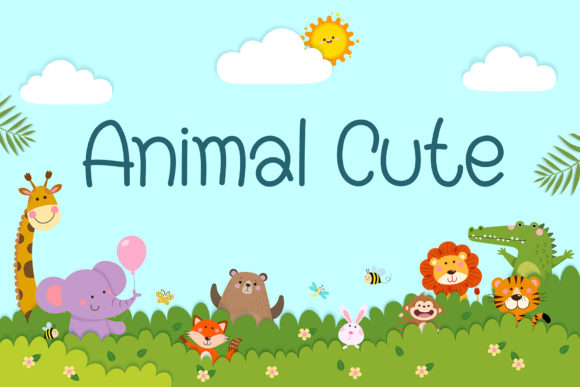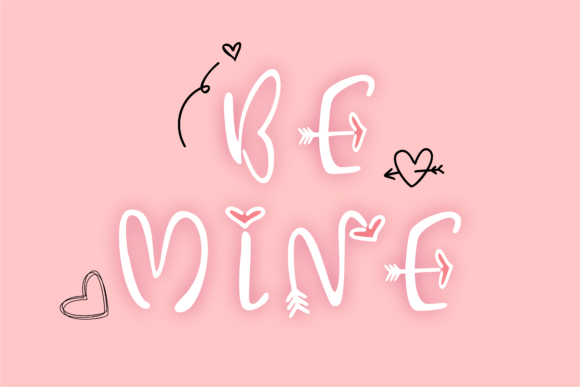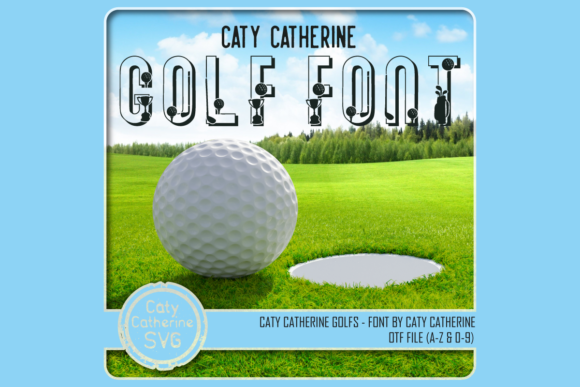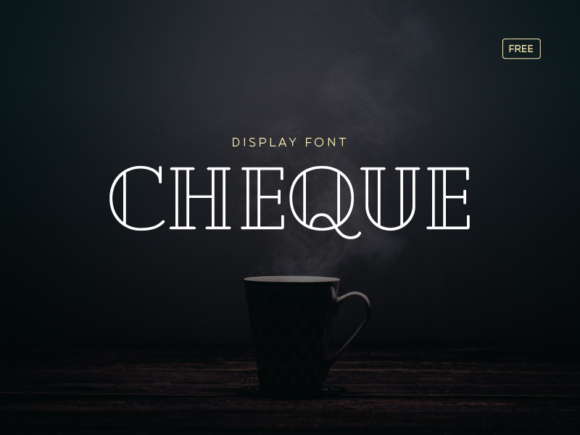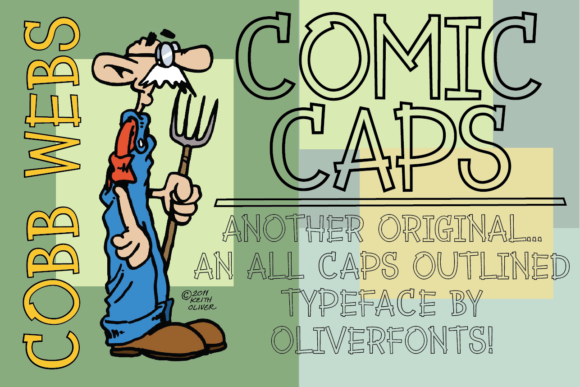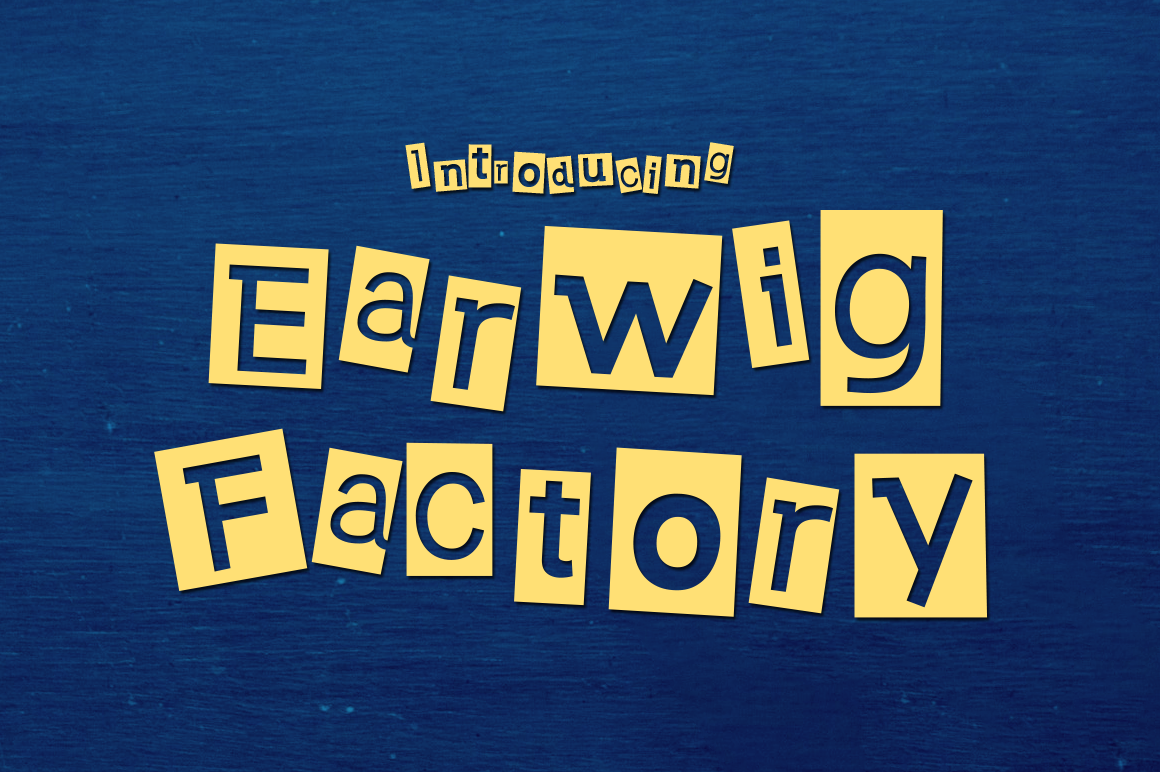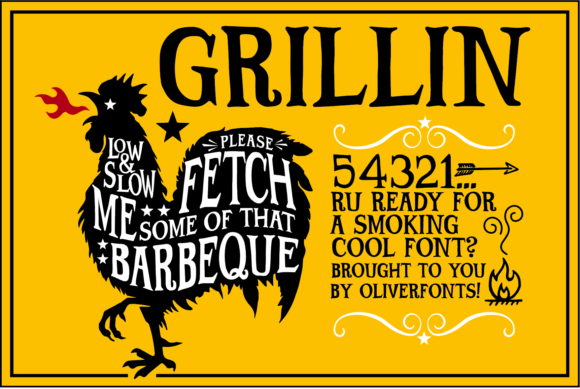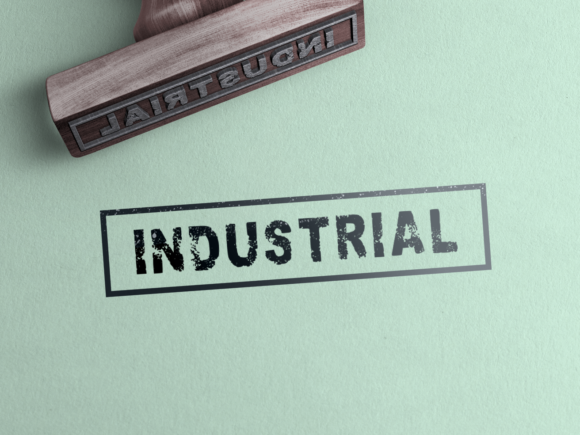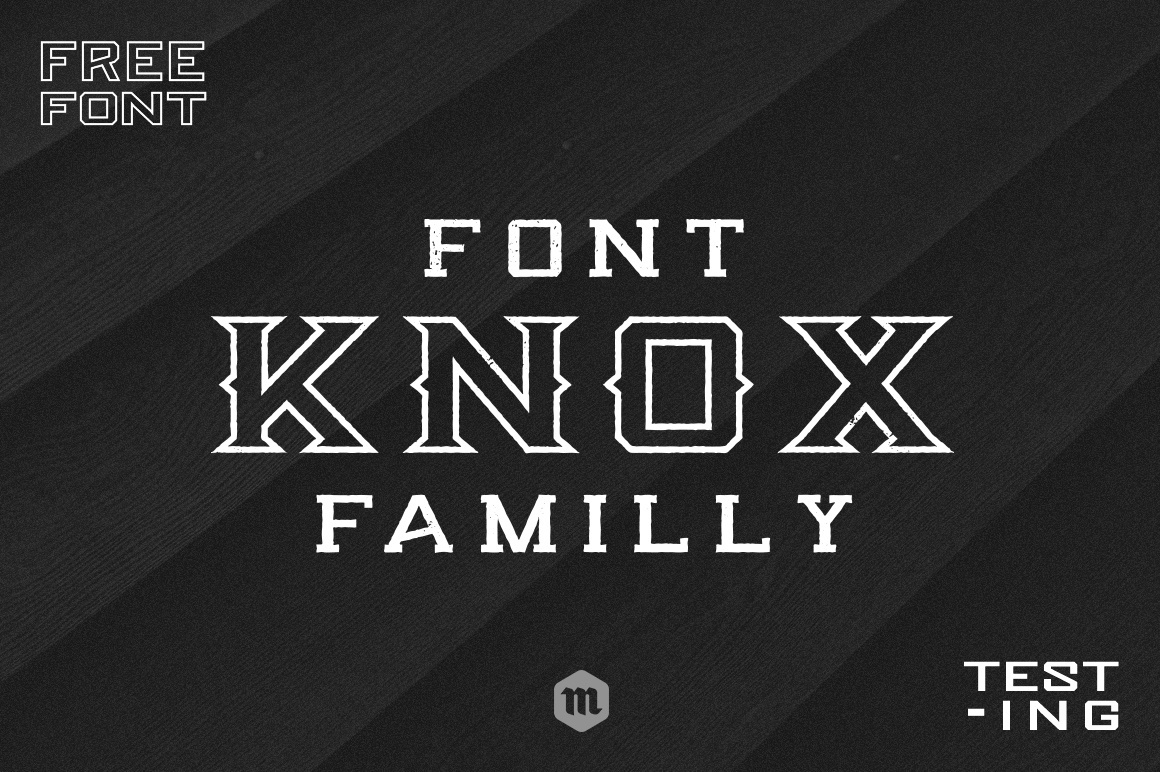
Free Display Fonts: 41 Best Bold & Decorative Picks (2026)
Free display fonts are built to be seen from across the room: bold headlines, punchy logos, and decorative accents that a body-text font simply can’t deliver. This collection rounds up 41 free display and decorative fonts, from chunky cartoon-style lettering to graffiti-inspired display faces, all pulled from Creative Fabrica’s most popular free downloads.
Quick Picks
| Best Overall | Play Ink – a chic, bubbly display font for branding and kids’ projects |
| Boldest | Carved Wood – an incredibly bold, unique display style |
| Best for Street Style | Notress – a graffiti-styled display font with a street art vibe |
| Best Decorative | Karina Monogram – a charming decorative font for invitations and stationery |
Matching a Free Display Font to Your Project
Free display fonts are headline tools, not body-text tools, so the main decision is tone: playful and cartoon-like for kids’ content, graffiti and street-style for urban branding, or clean and geometric for modern logos. Decorative fonts, mixed into this same list, go a step further by building illustrative detail directly into the letterforms, which makes them strong standalone graphics for cards and monograms rather than just headline type. Whichever direction you go, pairing a bold free display font with a plain body font keeps the overall design readable.
Styling Tips for Free Display Fonts
Use free display fonts sparingly, one per headline is usually enough. Stacking two display fonts in the same design competes for attention, while a single display font paired with a simple sans serif for supporting text lets the display font do its job.
41 Free Display Fonts
1. Play Ink
Best for: Kids’ Projects, School & Classroom
Play Ink is a chic and bubbly display font. It embodies playfulness and authenticity and is the perfect choice for any children’s activity or school project.
2. Super Space
Best for: Kids’ Projects, School & Classroom
Super Space is a fun, cool, and thick lettered display font. It embodies playfulness and authenticity and is the perfect choice for any children's activity or school project.
3. Sugar Peachy
Best for: General Design
Introducing Sugar Peachy, a font that exudes happiness, uniqueness, and wonders.
4. Carved Wood
Best for: General Design
Carved Wood is an incredibly bold and unique display font. Add this font to your favorite creative ideas and notice how it makes them come alive!
5. Ridge 5 Bold
Best for: General Design
Ridge 5 was designed from the need for a complete multi-line font that’s not limited to only uppercase, but also includes lowercase and all European diacritics.
6. Super Brave
Best for: Kids’ Projects, School & Classroom
Super Brave is a bold and cartoon-like display font. It embodies playfulness and authenticity and is the perfect choice for any children's activity or school project.
7. Knucklehead
Best for: General Design
Knucklehead Free is a free font that is part of the Knucklehead Family created by Mcraft. You can find the complete Knucklehead Family here.
8. Industrial
Best for: General Design
Industrial is a bold and timeless display font that mimics the stamp effect on envelopes and pancakes.
9. Fern Fronds
Best for: General Design
Are you looking for a font that captures the serene beauty of nature? Do you want to add some lush flair to your designs? If so, you will love Fern Fronds – quirky display-decorative font!
10. Animal Cute
Best for: General Design
Animal Cute is a fun and friendly lettered display font that is easy to read.
11. Notress
Best for: Logos & Branding, Apparel & Merch
Notress is an awesome, graffiti-styled display font that has a street art vibe. This font is suitable for designs such as t-shirts, sportswear, logos, advertisements, clothing, and more.
12. Grillin
Best for: General Design
Grillin is a fun and powerful display font.
13. Scary Halloween Trio
Best for: General Design
Scary Halloween Font Trio is an incredibly cool font (sans serif, serif, and dingbats).
14. Say Hello
Best for: General Design
Say Hello is a beautiful and sweet display font. It is fresh, clean, and elegant. This font will look amazing in a great number of projects, both formal and informal.
15. Sandbox Steel
Best for: Cards & Stationery
Sandbox Steel is a clean and robotic styled display font. It is ideal for writing web designs, business cards, or pretty much anything else that requires a cool touch.
16. Super Magic
Best for: Kids’ Projects, School & Classroom
Super Magic is a bold and cartoon-like display font. It embodies playfulness and authenticity and is the perfect choice for any children's activity or school project.
17. Funky Retro
Best for: General Design
Funky Retro is an all-caps vintage display font with a bold style. This font is sweet, cute, and dynamic.
How many free display fonts should I keep in my library?
A handful covering different moods, playful, bold, retro, and clean, covers most projects. Having several free display fonts on hand means you’re not stuck reusing the same headline style for every design.